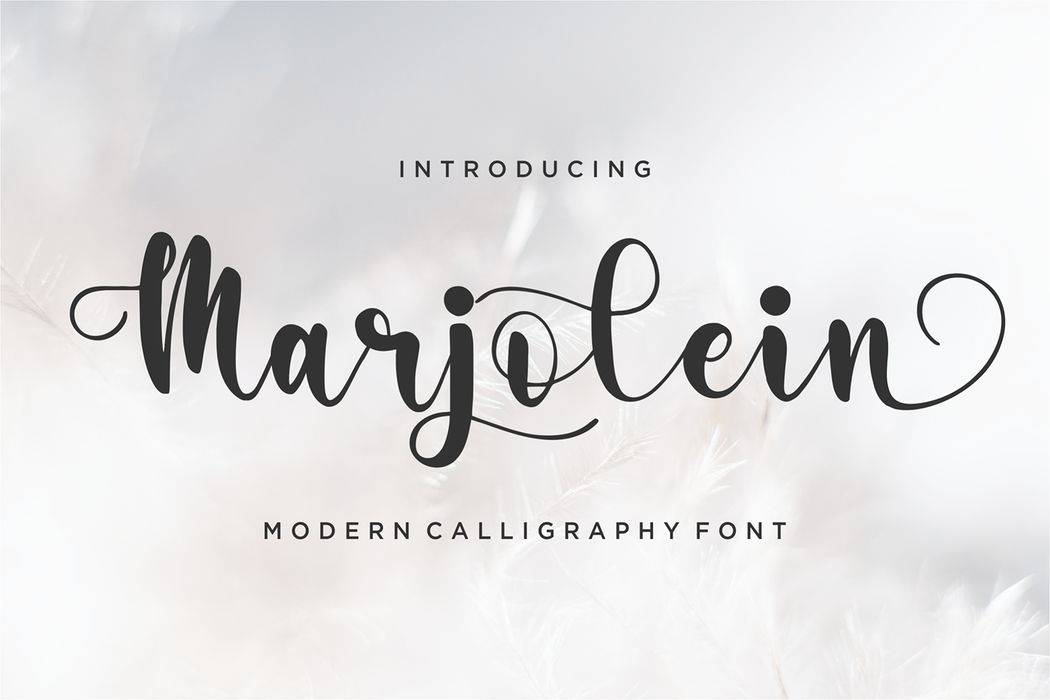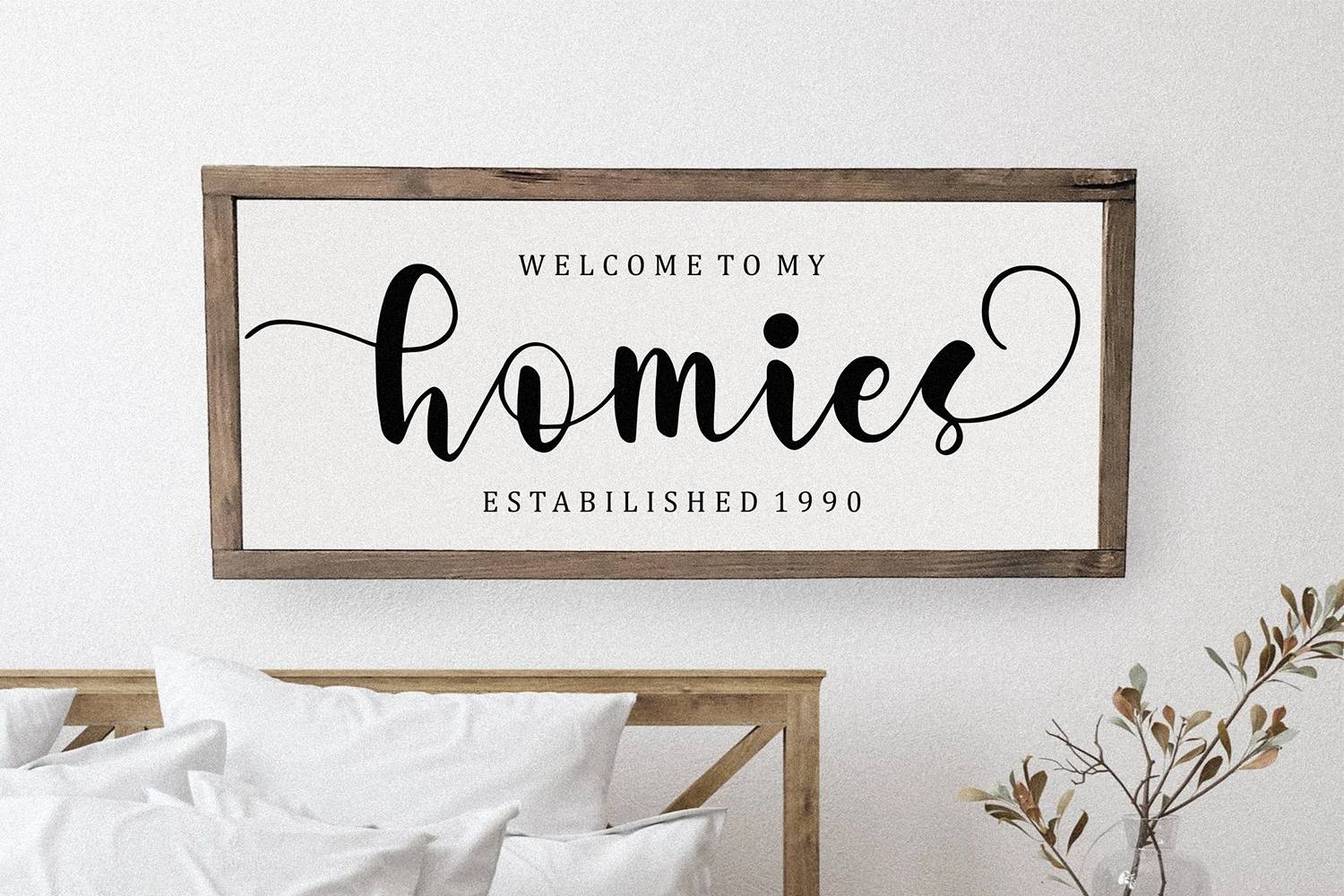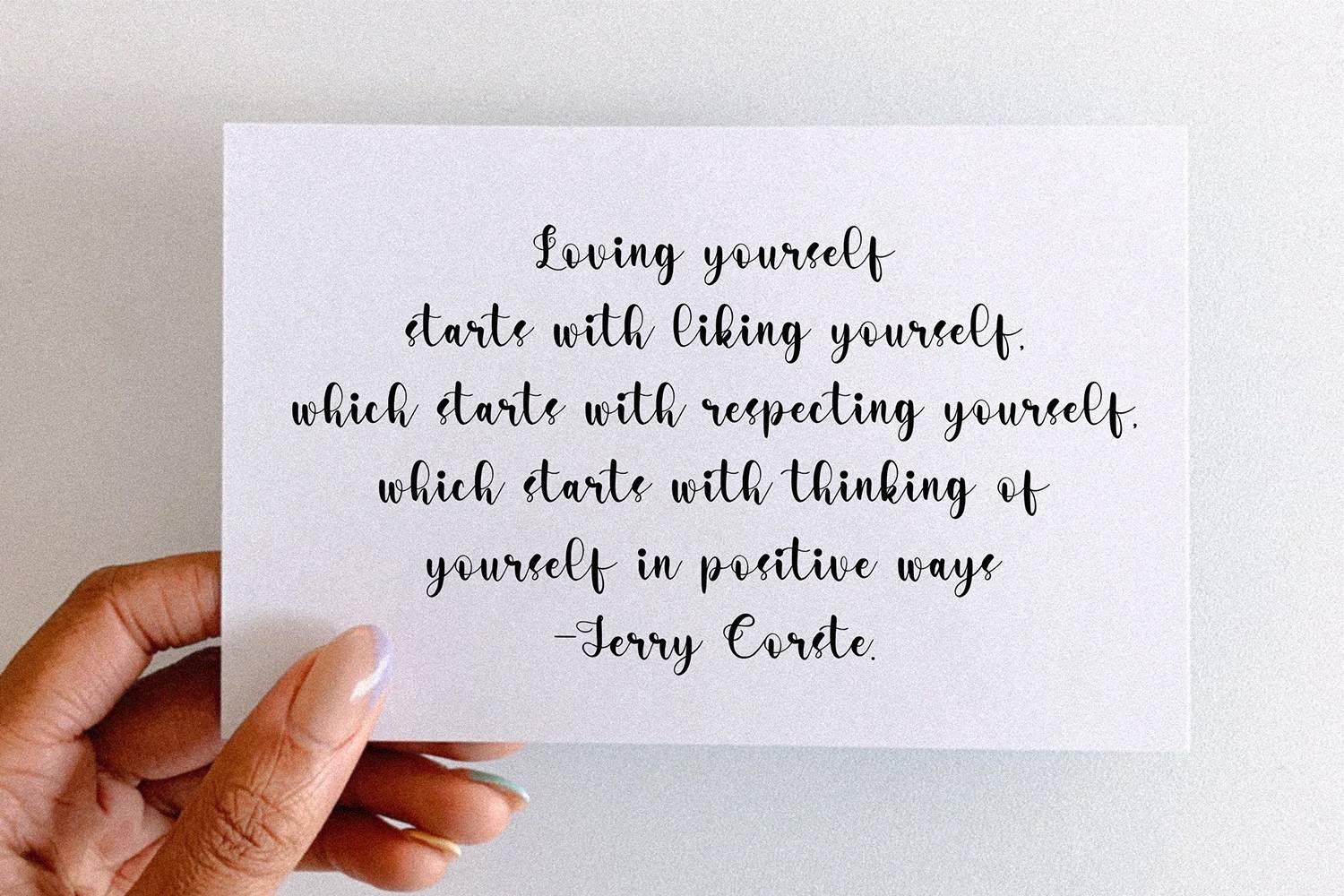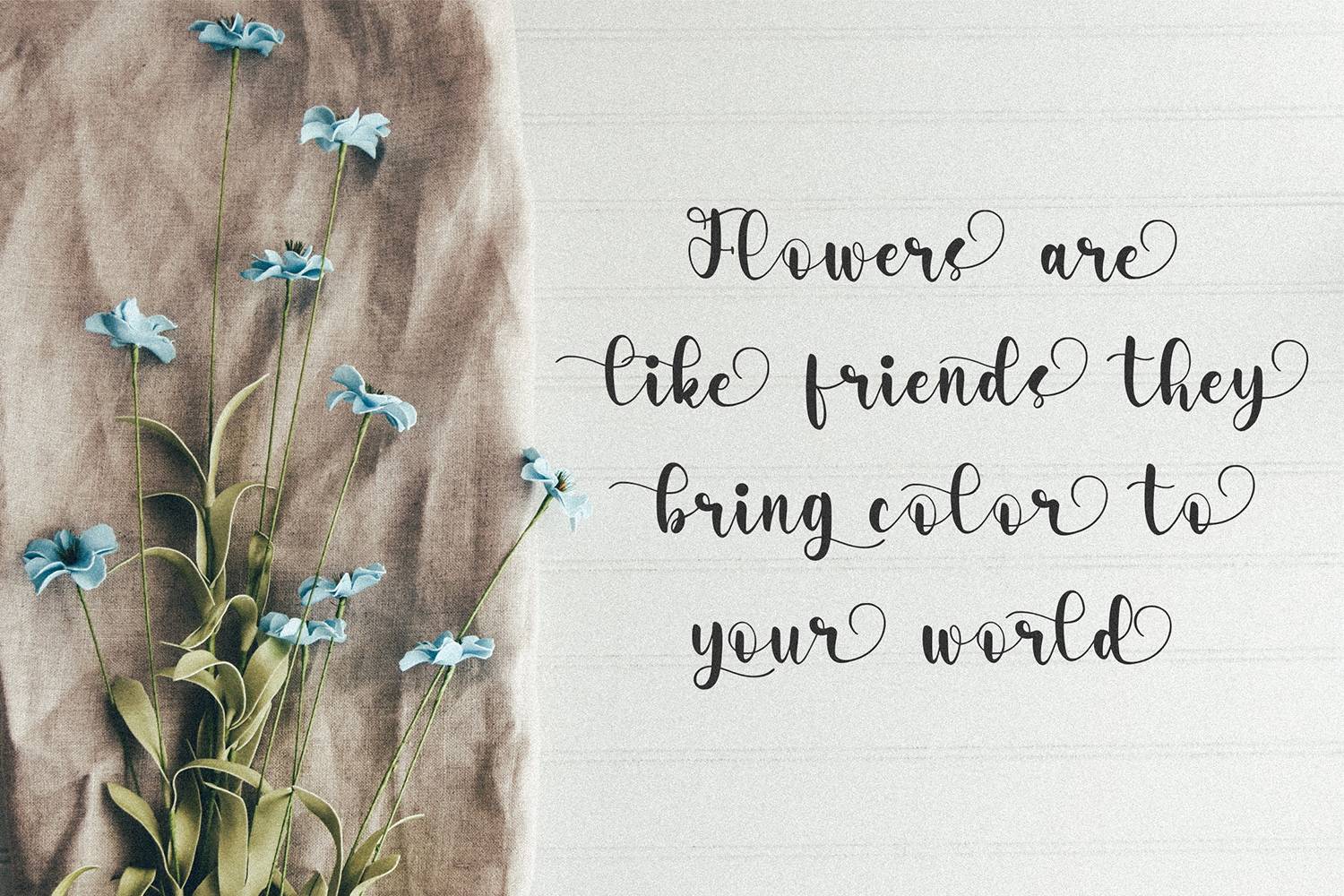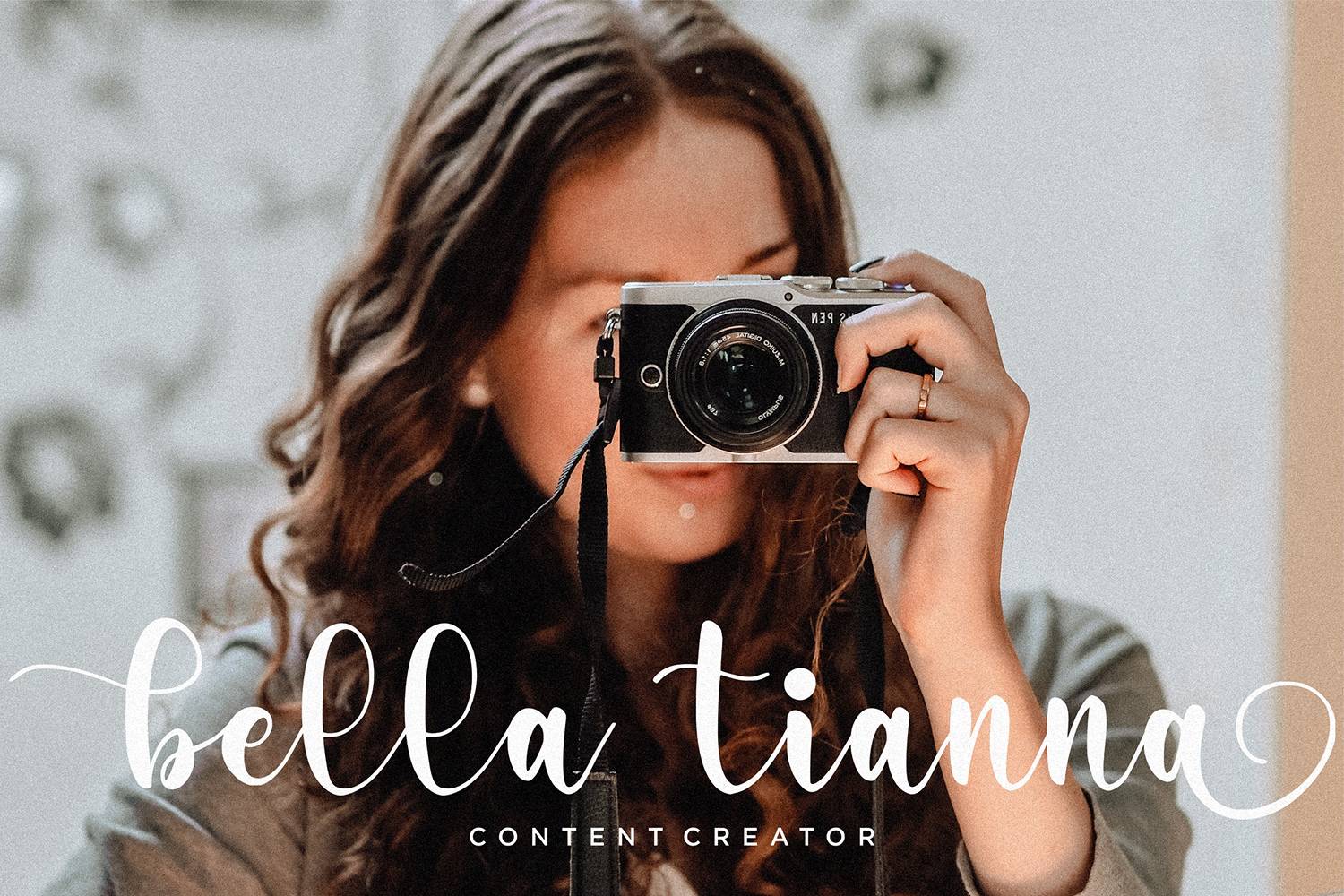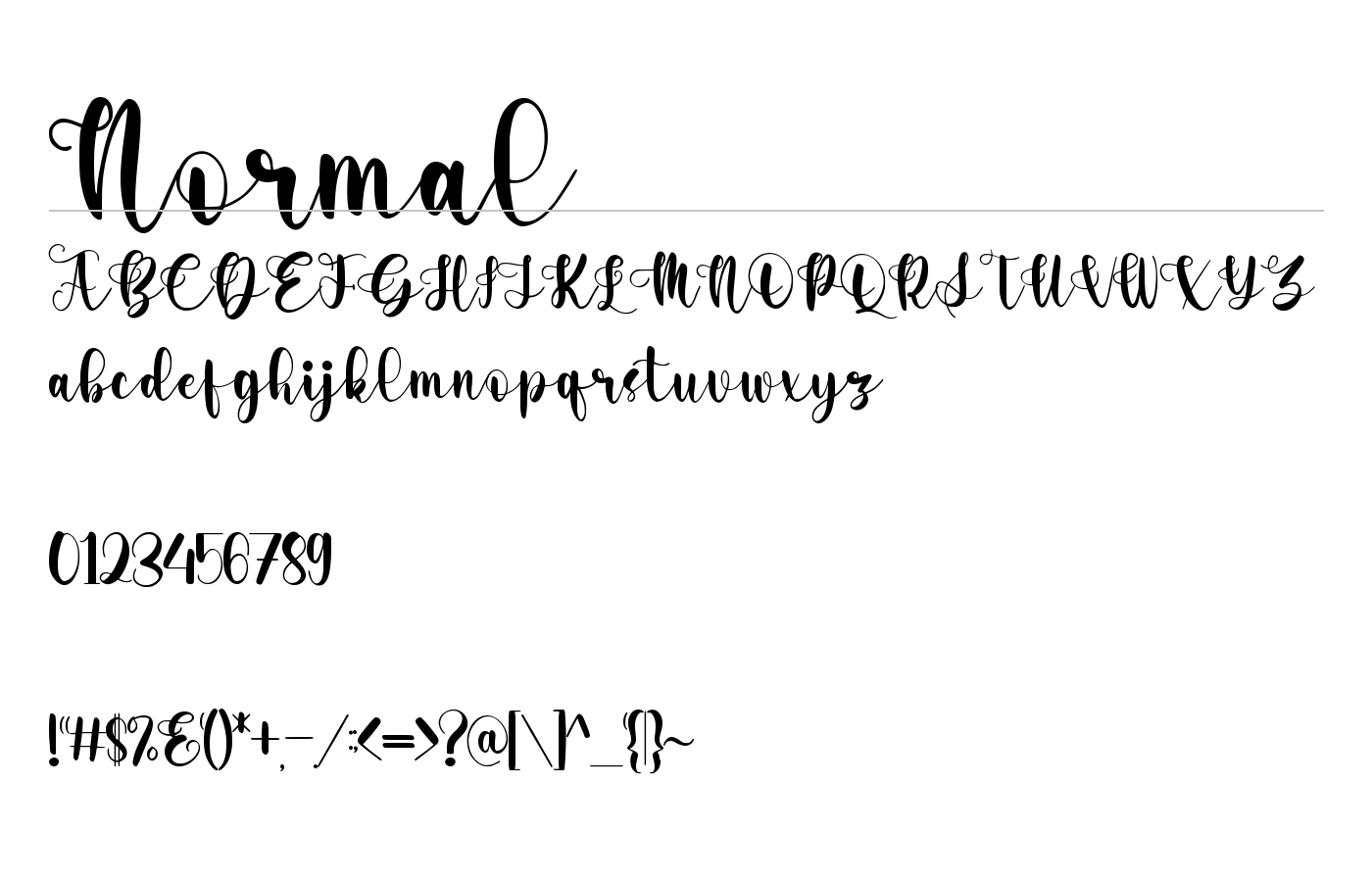
Marjolein is a decorative script font that features elegant, flowing letterforms with charming swashes and flourishes, giving it a playful yet sophisticated personality. Its moderate contrast in stroke weight and smooth, rounded curves make it ideal for stylish branding, invitations, and headlines that need a touch of crafted elegance. This font excels in projects where a personal, feminine, and artistic feel is desired, such as fashion, beauty, and creative packaging.
Marjolein Font
About Marjolein Font